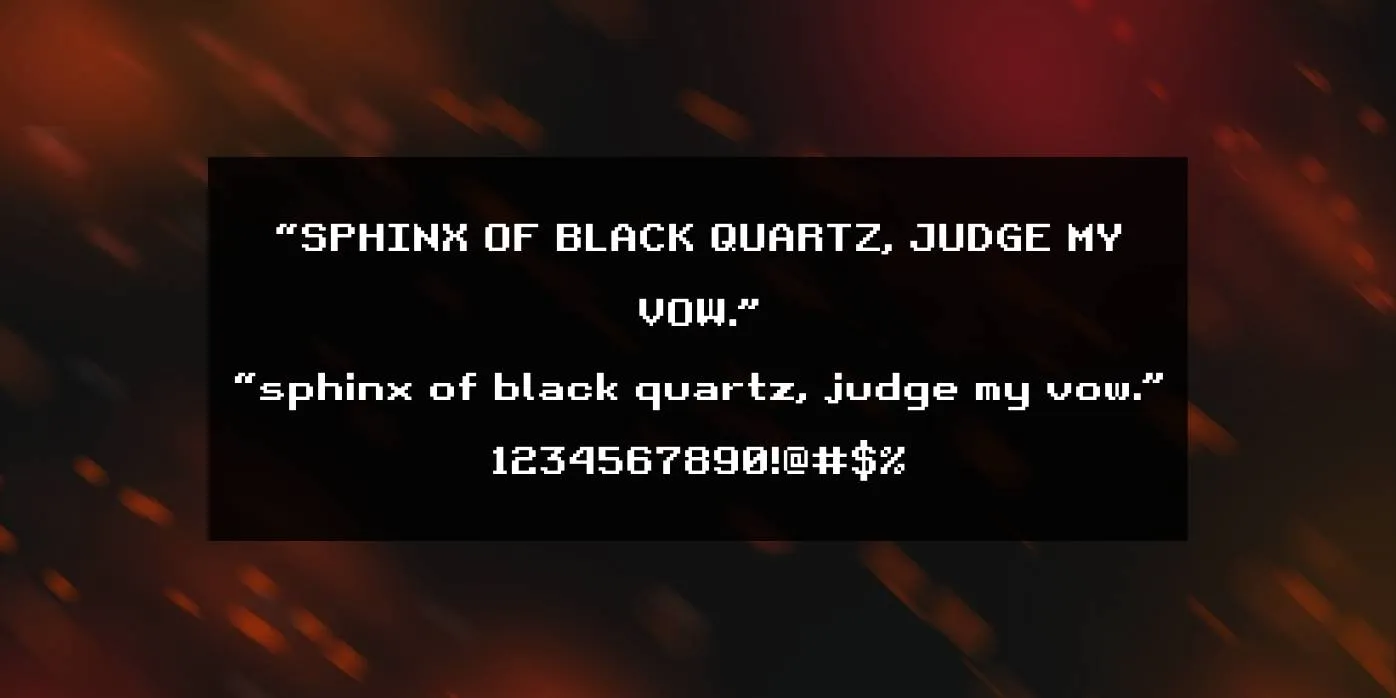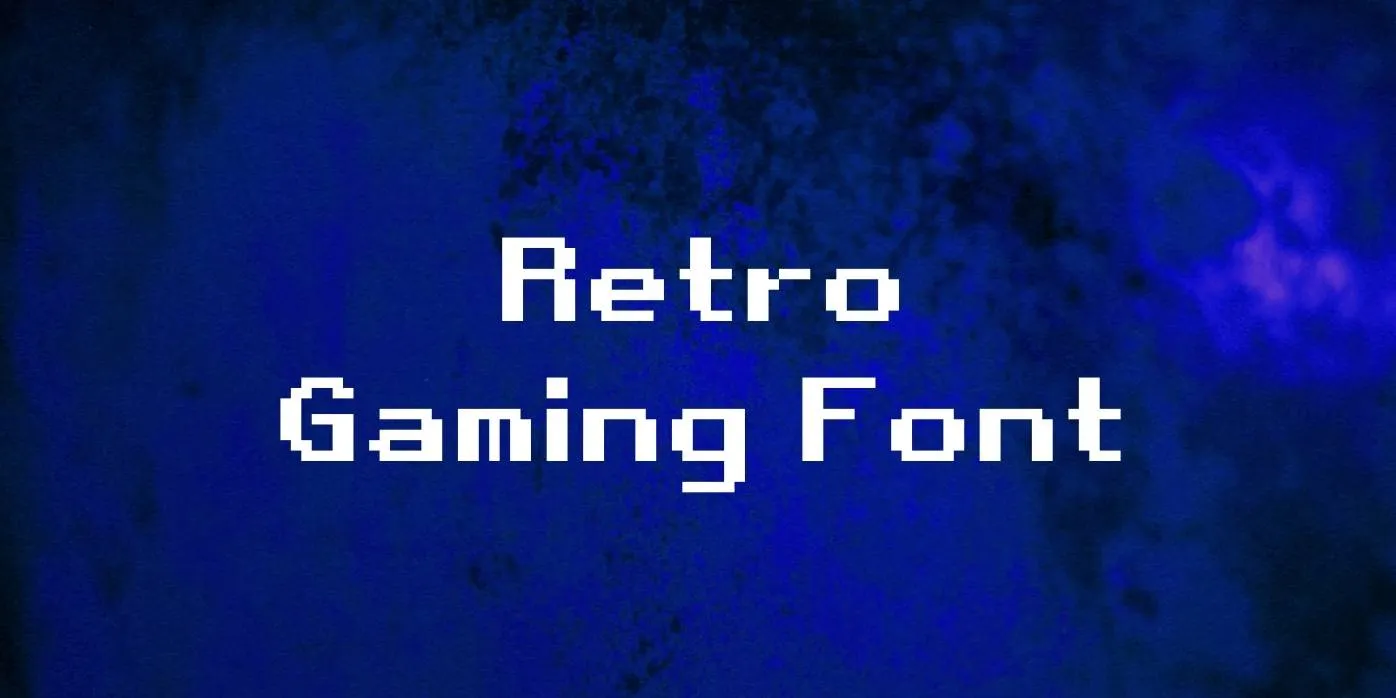
Retro Gaming Font
In this post, we discuss a modern font family named Retro Gaming Font. This typeface belongs to the retro fonts family.  As the name suggests, this font is perfect for creating vintage designs. This gaming font was created by Daymarius. The family includes regular and bold styles.
Both of these styles contain uppercase and lowercase letters, numerals, and symbols. You can use this font for various purposes such as headlines, logos, badges, posters, etc. You can use tron font which has the same style and characters as this one. If you are a fan of vintage designs, then Retro Gaming Typeface is the perfect choice for you.
This font will help you create impressive designs that will stand out from the crowd.